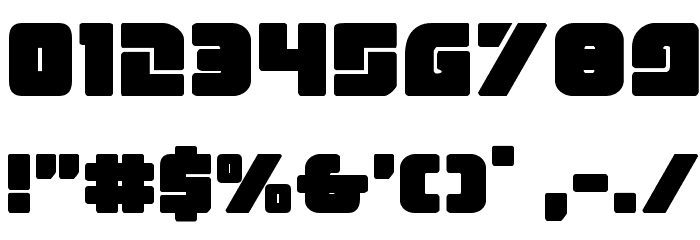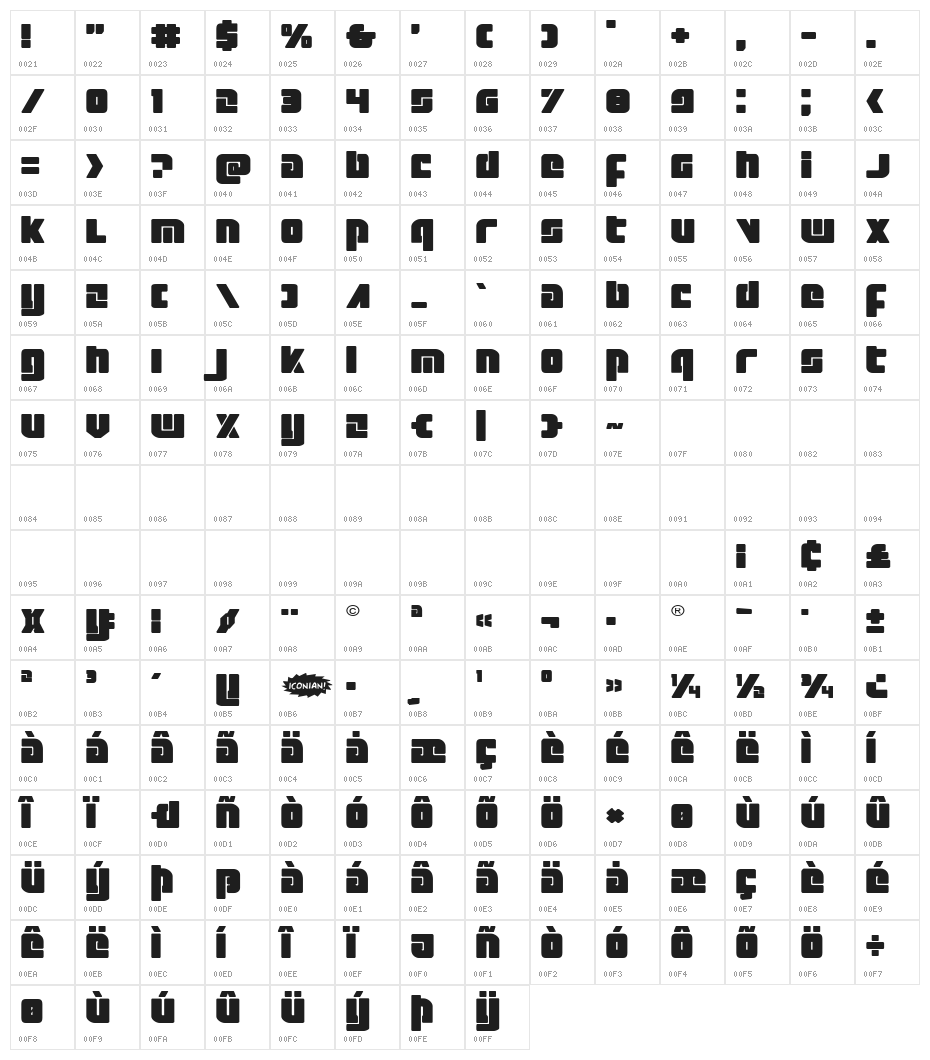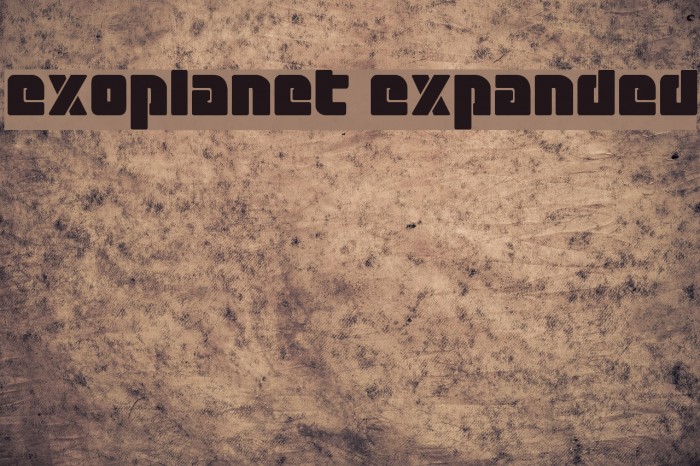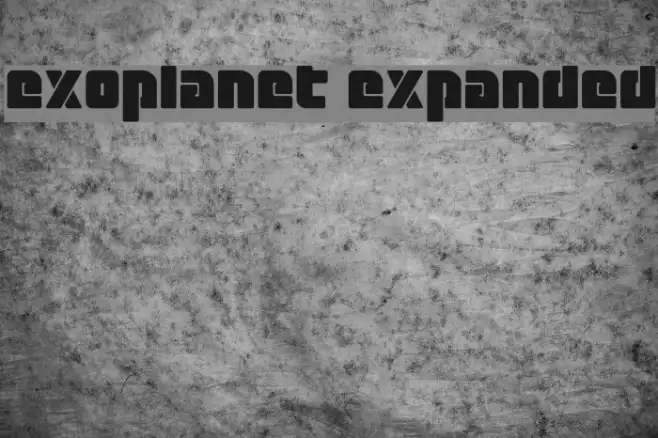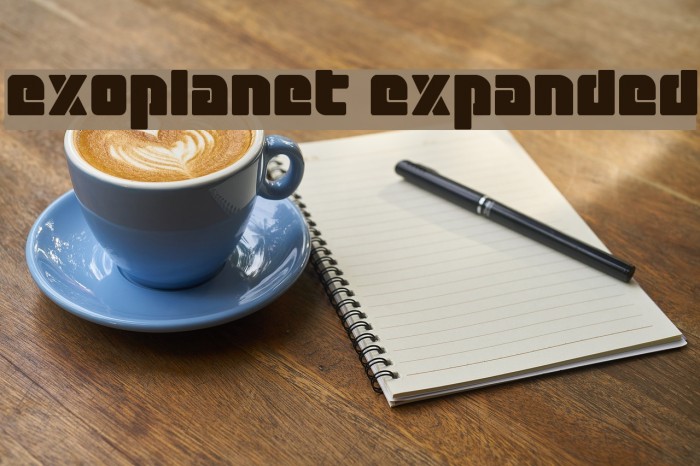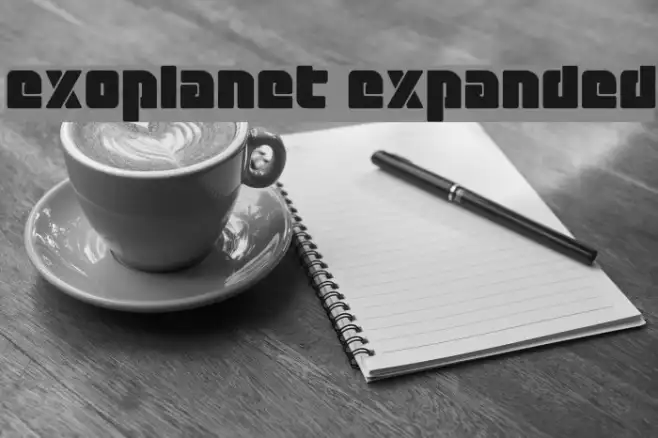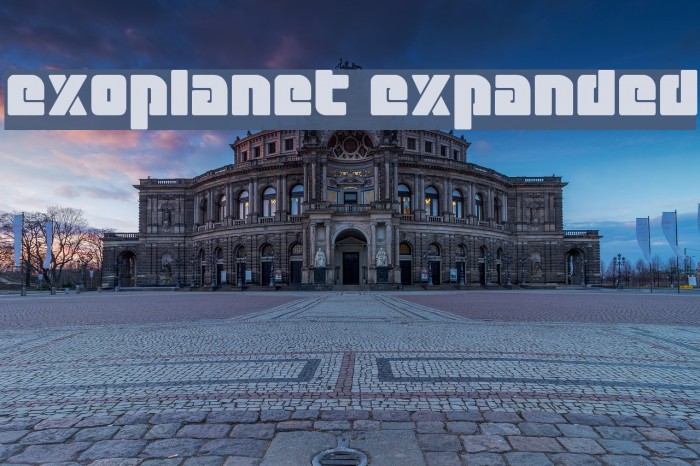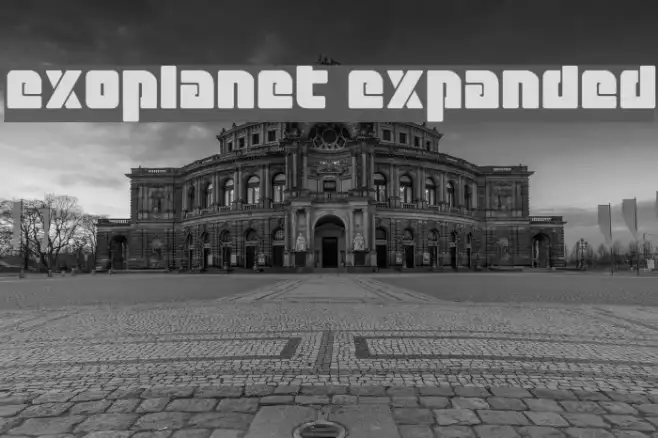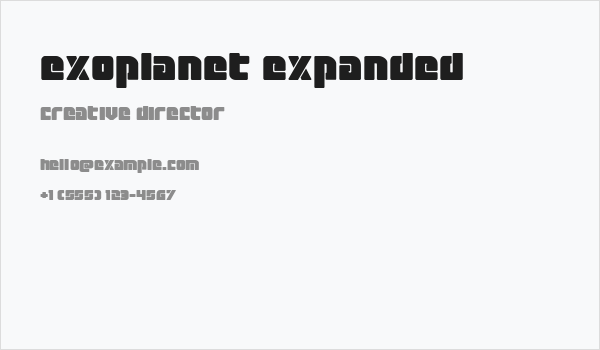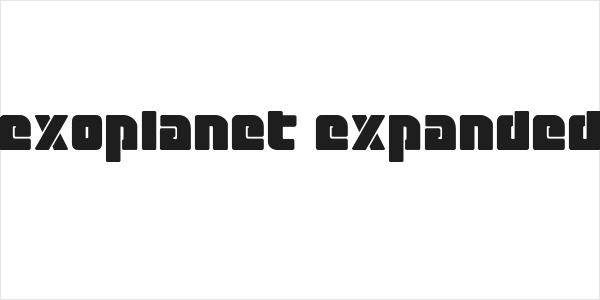
Exoplanet Expanded Font
Exoplanet Expanded Description
This font features a bold and futuristic design with a distinctly geometric and blocky appearance. The characters are uniformly thick, creating a strong visual impact. The style is reminiscent of digital or sci-fi themes, with a modern twist. Each letter is crafted with precision, maintaining a consistent height and width, which contributes to its cohesive look. The font's expanded width gives it a unique presence, making it ideal for attention-grabbing headlines or titles. Its boldness and uniformity make it suitable for projects that require a strong and assertive typeface.
| Proposed Projects | Ideal for sci-fi themed posters, video game titles, technology branding, and futuristic event flyers. |